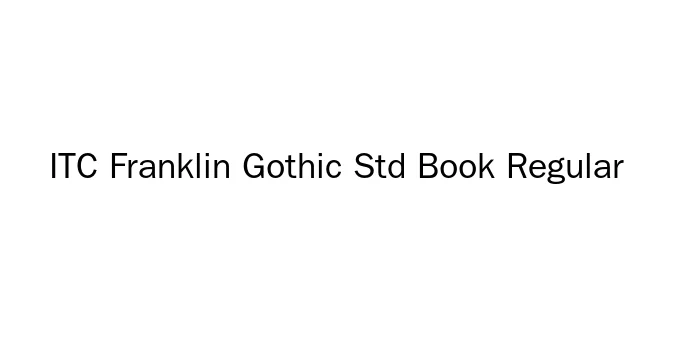
ITC Franklin Gothic Std Book Regular
Designed by Victor Caruso (ITC version), Morris Fuller Benton (Original)
ITC Franklin Gothic Std Book Regular is a refined version of the classic grotesque typeface originally designed by Morris Fuller Benton in 1902 for the American Type Founders. In 1980, the International Typeface Corporation (ITC) commissioned Victor Caruso to expand the family, creating a version with a slightly taller x-height and a wider range of weights. This specific 'Book' weight was developed to provide a perfect balance between legibility in body text and the authoritative, heavy presence of the original design.
The typeface is characterized by its distinctive double-story 'g' and 'a', which lend it a quirky yet professional personality that distinguishes it from other mid-century sans-serifs like Helvetica or Arial. It has since become a staple in American editorial design and corporate branding, known for its ability to convey clarity, reliability, and a timeless modern aesthetic.
ITC Franklin Gothic Std Book Regular Best Uses
Excellent for magazine layouts, newspapers, and long-form editorial content.
Highly effective for professional logos, business cards, and official company documentation.
Provides a clean, high-impact look for both print and digital marketing campaigns.